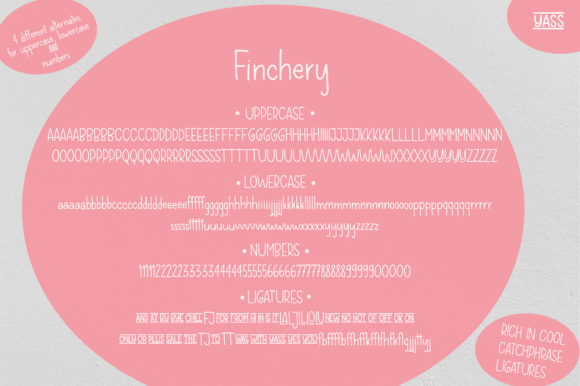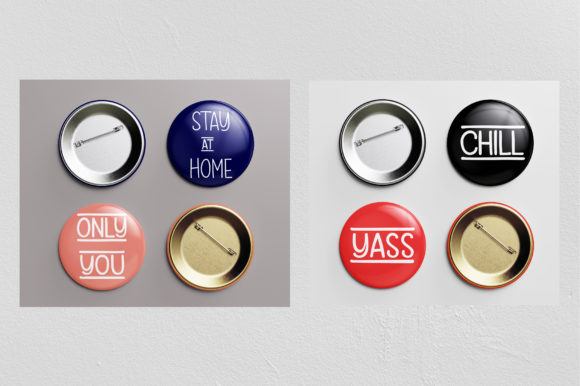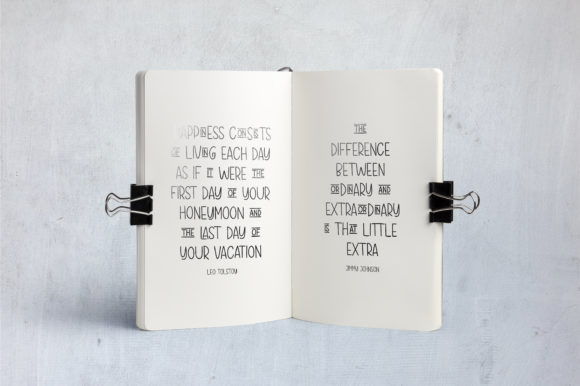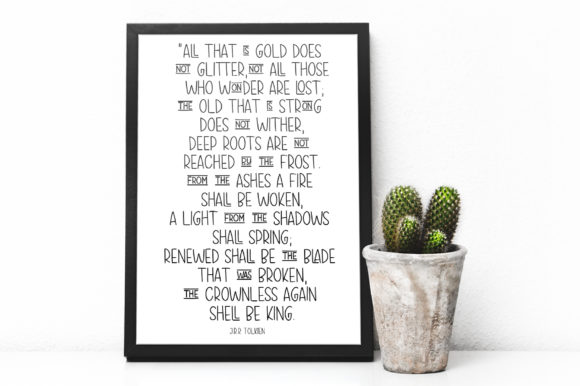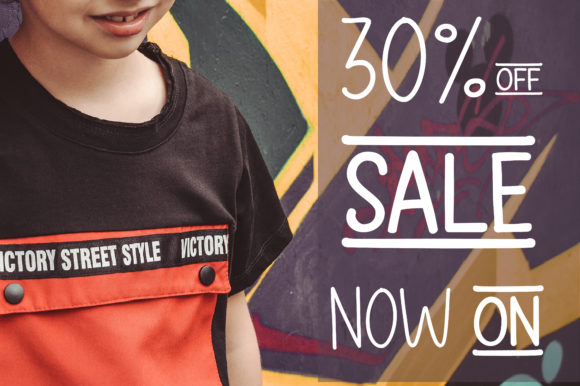
Finchery Font – Free Download
Introduction to Finchery Font
Finchery is a playful handwritten font.
Why Choose Finchery Font?
Finchery Font offers exceptional quality and versatility, making it a valuable addition to your design toolkit. Whether you’re creating for personal projects or commercial use, Finchery Font delivers professional results.